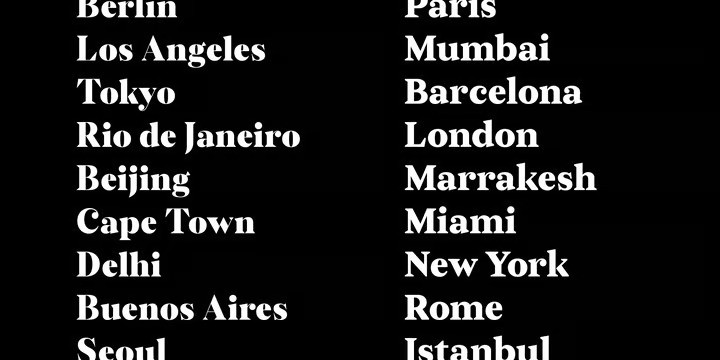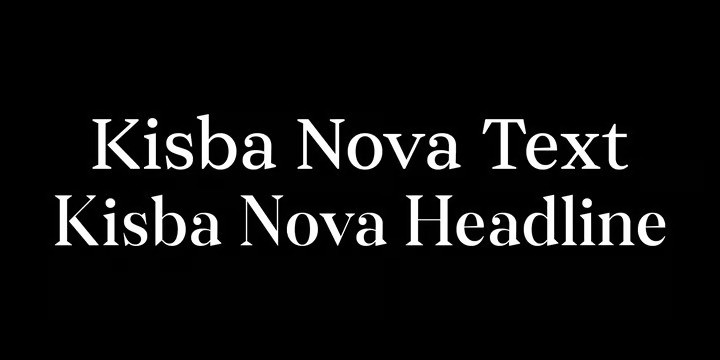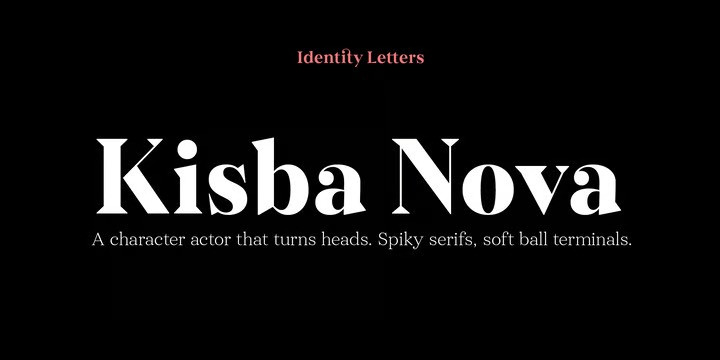
Kisba Nova Headline Font
Kisba Nova Serif Font Family. A character actor that turns heads. Spiky serifs, soft ball terminals.
All eyes on Kisba Nova: enter a typeface designed to arouse attention. Kisba Nova is that one guest who joins a party, and a murmur goes through the crowd. Kisba Nova is pure charisma.
Opposites attract: Kisba Nova combines sharp wedge serifs and spiky spurs with round and soft ball terminals. Infuse this with a neoclassical stroke contrast and you get a thrilling typeface driven by visual extremes.
Sure: Kisba Nova is a diva. But it’s a pro, after all. That’s why it comes in two optical sizes: Headline and Text. This makes sure it looks gorgeous in any situation.
The Kisba Nova Headline subfamily is flaunts the trademark flamboyant looks and extravagant letters like f and k. They bring you all of the excitement of the showbiz in large applications—use it for sizes of 24 Pt. and more. The extraordinarily designed, thin and monolinear diacritics, punctuation marks, and symbols of Kisba Nova Headline add to this modern and elegant character.
Kisba Nova Headline consists of seven weights from Thin to Black, offering plenty of possibilities to set headlines and titles. With about 600 characters per weight, it contains enough functionality for the demands of a skilled typographer. OpenType features, such as a large set of ligatures, extended language support, case-sensitive forms, different sets of figures, and arrows, enable sensational designs both in web & print layouts.
The Kisba Nova Text subfamily comes with decreased contrast, more generous letter proportions, and wider spacing. Instead of employing flashy thin and monolinear diacritics, punctuation marks, and symbols, Kisba Nova Text aims for a more even texture on the page. It retains the true, elegant Kisba DNA while allowing you to set legible copy in sizes between 9 and 18 Pt. Nothing will distract your reader–Kisba Nova Text aims to please.
Kisba Nova Text consists of seven weights from Thin to Black, offering plenty of possibilities to set body copy and subheadlines. With about 600 characters per weight, it contains enough functionality for the demands of a skilled typographer. OpenType features, such as a large set of ligatures, extended language support, case-sensitive forms, different sets of figures, and arrows, enable sensational designs both in web & print layouts.
Kisba Nova celebrates the dual nature of softness and sharpness in a single typeface. It’s a character actor that turns heads.